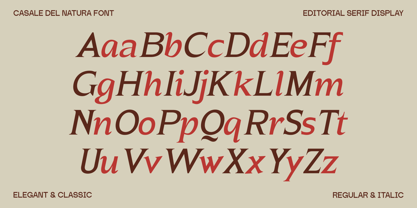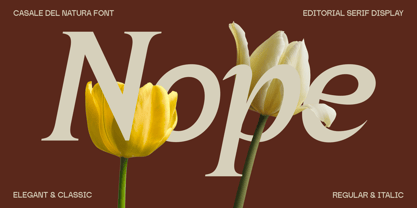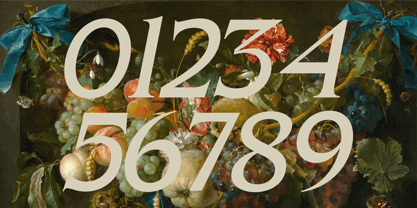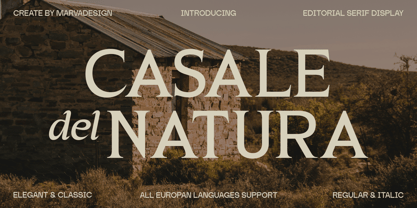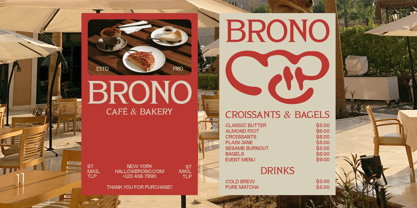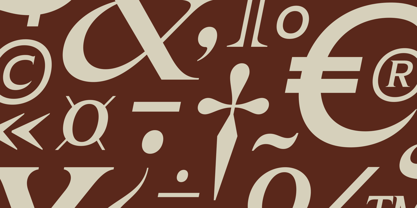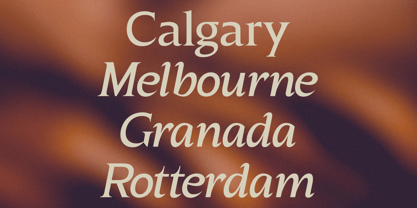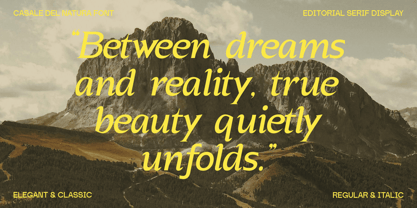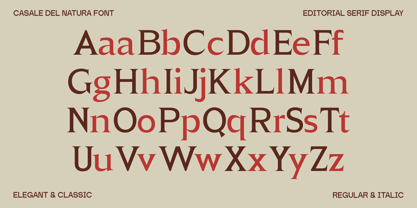
Casale Del Natura
Die Schriftfamilie Casale Del Natura wurde von Febrie Setiawan entworfen und von Marvadesign veröffentlicht. Casale Del Natura enthält 2 Stile und Familienpaketoptionen. Mehr über diese Familie
CASALE del NATURA is an elegant editorial serif display font that captures the timeless beauty of classic typography with a refined contemporary touch. Featuring graceful high-contrast letterforms, sophisticated curves, and beautifully crafted italics, it delivers a luxurious and artistic personality that instantly elevates any design. Inspired by the harmony of nature and European heritage, CASALE del NATURA is perfect for premium branding, luxury packaging, fashion editorials, travel magazines, boutique identities, wedding stationery, and high-end marketing materials. With support for a wide range of European languages, this typeface offers exceptional versatility while maintaining its distinctive charm, making every headline and display composition feel graceful, memorable, and effortlessly sophisticated.